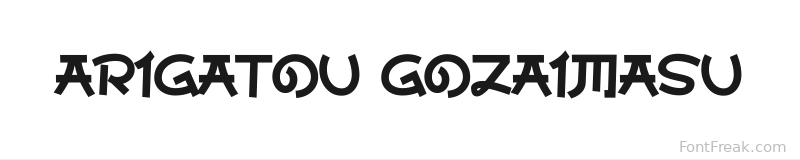
Arigatou Gozaimasu
About Arigatou Gozaimasu
The Arigatou Gozaimasu font, designed by Wahyu Eka Prasetya, presents a unique take on decorative typography. This font falls into the display category, characterized by its bold and playful design that captures attention effortlessly. The strokes are thick and robust, lending it a strong presence, while the overall structure exhibits a slight irregularity that adds a touch of whimsy. The spacing is generous, ensuring that each letter stands out, making it an ideal choice for various creative projects.
Visual characteristics include a consistent stroke weight that enhances legibility while maintaining a fun aesthetic. The decorative elements of this font, inspired by Japanese culture, create a sense of warmth and friendliness, making it suitable for designs that aim to evoke positive emotions.
The Arigatou Gozaimasu font is perfect for a variety of use cases. It can be effectively employed in wedding invitations, where its charming style adds a personal touch. Additionally, it excels in restaurant menus, providing a friendly and inviting vibe that complements the dining experience. This font is also an excellent choice for event flyers, children's book covers, and promotional materials for small businesses aiming to connect with their audience on a more personal level.
In conclusion, the Arigatou Gozaimasu font stands out due to its combination of playful design and cultural significance, making it a memorable choice for anyone looking to infuse their work with character. Don't miss the opportunity to explore the Arigatou Gozaimasu font free download and elevate your designs today.